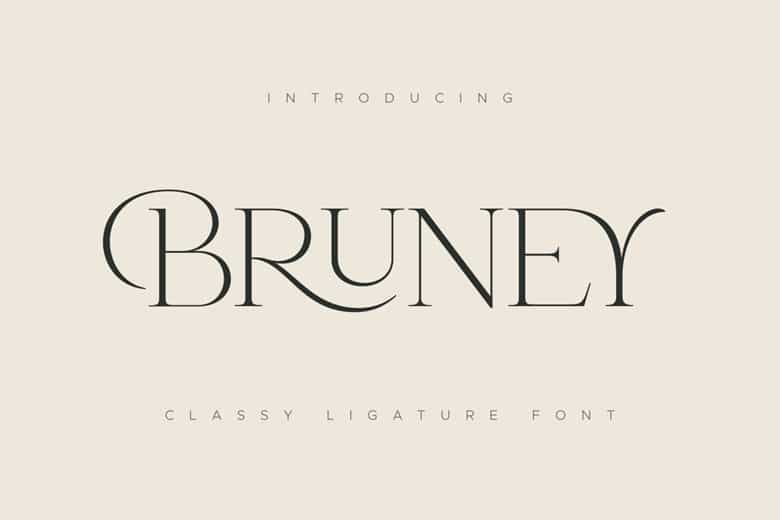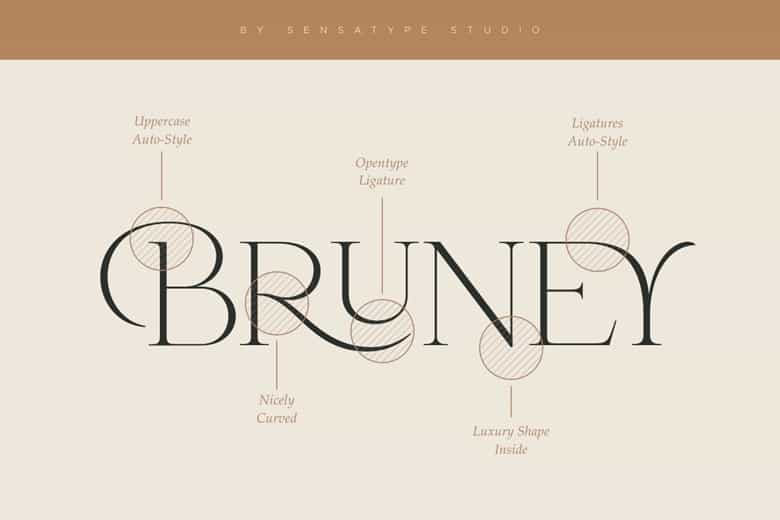
Bruney is a ligature serif typeface but comes with elegance traits and has relaxed chic appeal. The students can use it for branding, wedding invites and cards, and probably for some project or other function.